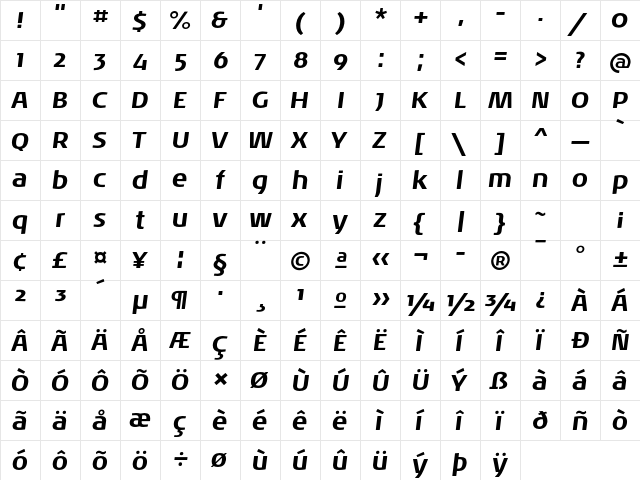
Noa LT Std Bold Oblique
| Foundry | Linotype GmbH |
| Designer | Nina Lee Storm |
Design Context for Noa LT Std Typeface
Noa LT Std takes a measured approach to typography — its balanced proportions and neutral character make it a reliable workhorse for both digital and print work. The slanted form adds forward momentum and visual energy. Its bold stroke weight gives it real presence on the page.
Pro Tip: Try Noa LT Std for annotation and caption copy alongside an upright companion — the contrast in angle creates a dynamic but ordered typographic system.